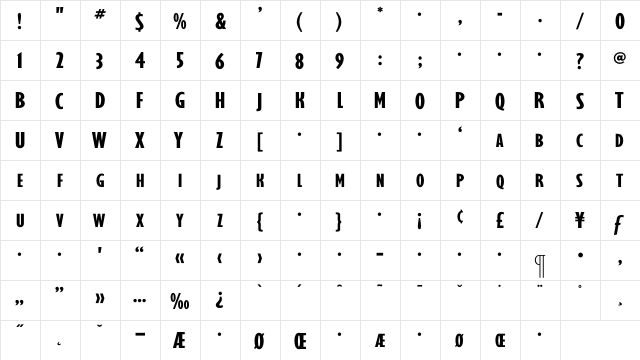
GilmoreSansExtBolExtCondTitl Regular
Design Context for GilmoreSansExtBolExtCondTitl Typeface
GilmoreSansExtBolExtCondTitl is a composed and adaptable typeface that performs quietly and consistently across a wide range of design contexts. Its narrow stance lets it pack a punch even in space-constrained designs.